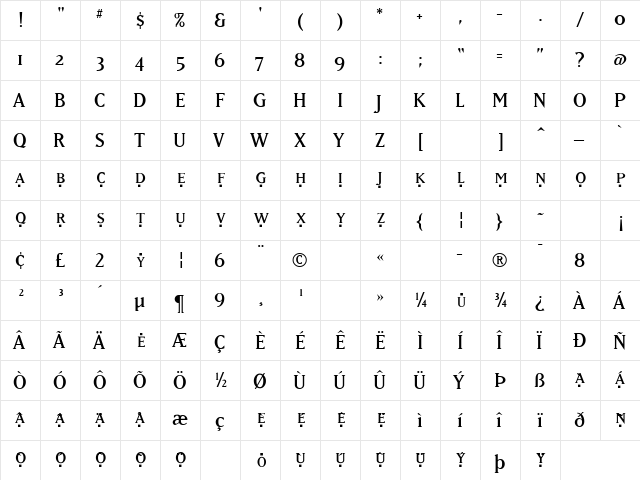
MummMatrix Caps
Design Context for MummMatrix Typeface
MummMatrix offers clean, dependable letterforms without strong stylistic allegiance, making it a practical choice for designers who need flexibility.
Pro Tip: Pair MummMatrix with a font of contrasting weight or personality to build a more expressive typographic hierarchy.